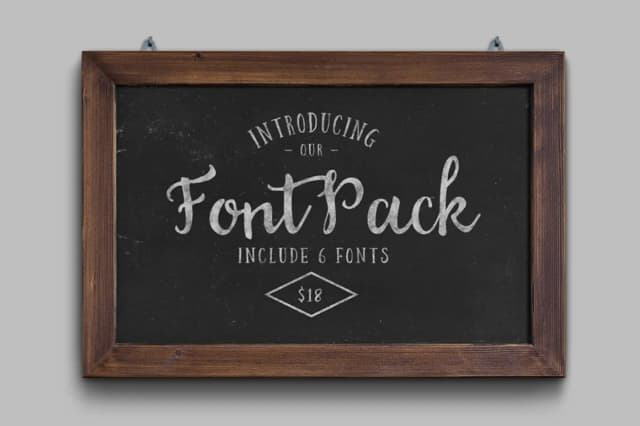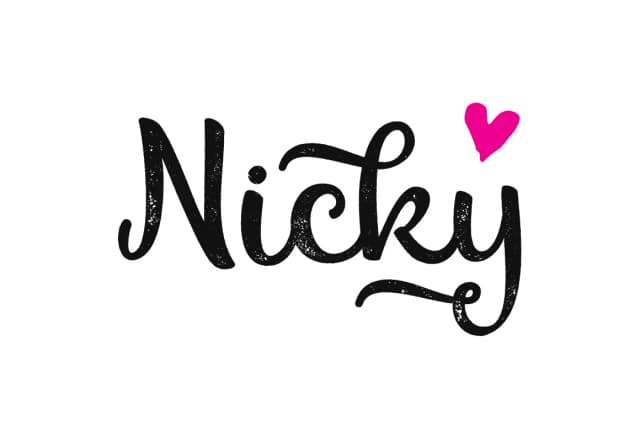
1 / 5About Devita Font
Devita by hexalove.st is a brush script typeface that captures attention through genuinely distinctive character and visual personality. The font's organic letterforms feature an intentionally uneven baseline and substantial strokes that create visible movement and rhythm across the page, making it an ideal choice for wedding invitation suites, luxury cosmetics packaging, boutique greeting card collections, personalized stationery systems, and hand-lettered retail and event signage. This brush-styled typeface authentically captures the spontaneity and warmth of hand-drawn marker lettering while maintaining strong legibility across sizes and real-world applications. The generous stroke weight combined with natural irregularities throughout each character gives your design work an undeniably crafted, handmade aesthetic, the kind of approachable personality that resonates with contemporary audiences seeking typefaces that feel personal and thoughtfully executed rather than algorithmic or mass-produced. The letterforms convey both confidence and individuality in equal measure. Whether you're building luxury branding materials, creating DIY printable collections, designing sophisticated social media graphics, or developing complete stationery systems for boutique creative businesses, Devita brings authentic character, visual warmth, and memorable style to every application. Discover Devita on Creative Fabrica and add this expressive brush script to your design toolkit.
- Elegant, Flowing, Devita
Devita Font is a script font that shines as a display or heading face. Pair it with a clean sans-serif or serif font for body text β the contrast creates a clear hierarchy while the two styles stay balanced and easy to read.
Devita Font
by hexalove.st